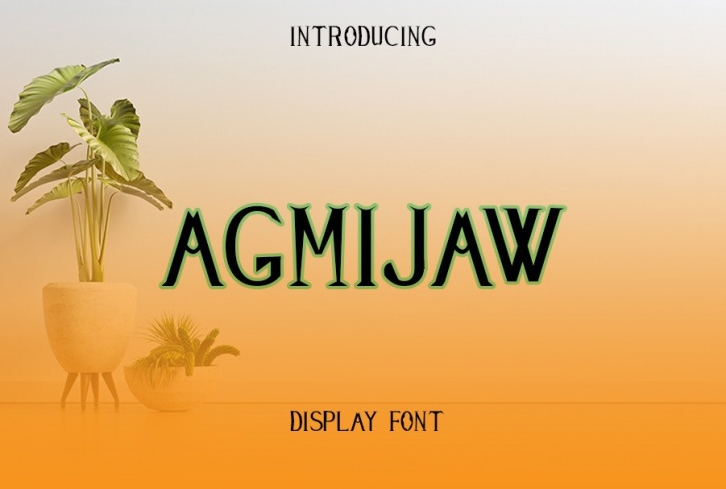
Agmijaw is a cool, bold and authentic display font. No matter the topic, this font will be an incredible asset to your fonts’ library, as it has the potential to elevate any creation.